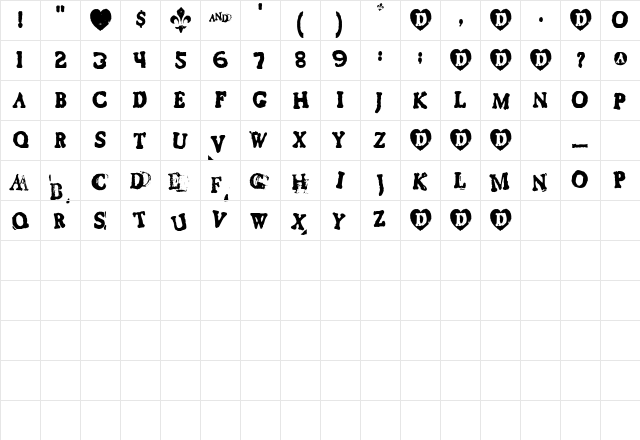
Fingerprints Regular
Design Context for Fingerprints Typeface
Fingerprints is a composed and adaptable typeface that performs quietly and consistently across a wide range of design contexts.